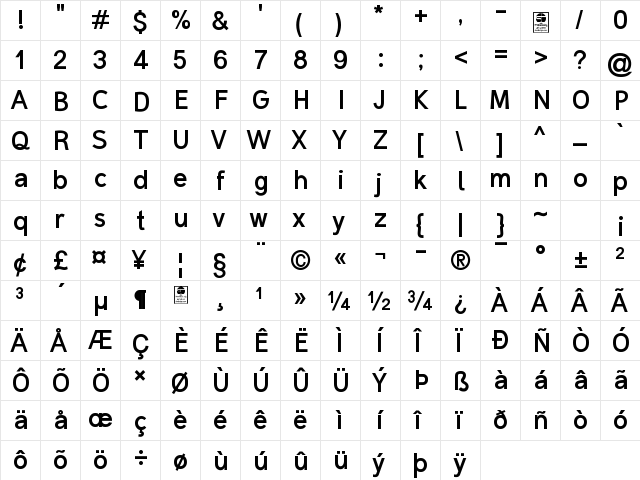
Malter Sans Bold demo Regular
Design Context for Malter Sans Bold demo Typeface
Malter Sans Bold demo takes a measured approach to typography — its balanced proportions and neutral character make it a reliable workhorse for both digital and print work. The heavy weight commands attention and anchors typographic hierarchies.